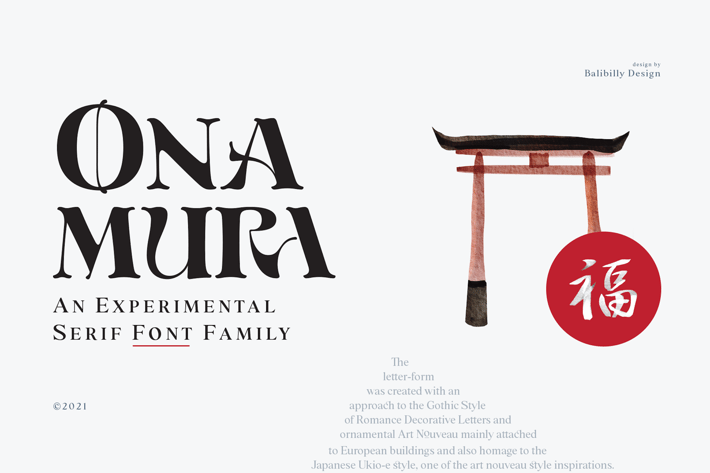
Onamura | Serif Experimental Font
Onamura, Serif Experimental Font
Initially, letterform was inspired by the gothic style of Romance decorative letters in transitional art in the Middle Ages. The conservative type in the Gothic era, especially in decorative romance, has led to the Victorian style being embedded in several forms as accents related but not forced to be combined. Rounded serif seems conventional combined with historically relevant letterform to create a harmonious blend, making it an excellent pair to Helvetica, Montserrat, Gotham, and many more. The art nouveau style also inspires this typeface. Approach to architectural ornamentation from 1880 to 1915, adopting the dynamic lines and curves typical of the civilization of the time. Continue time travel; we also present a more modern form influenced by the digitalization of art nouveau derivatives, familiarly called the psychedelic style.
Paying homage to predecessors, we presented The Onamura font in a Japanese Ukiyo-e style that influenced the fine arts movement that broke old conservative art in Europe.
We designed this font carefully with the information about the Middle Ages, Ukiyo-E, & Art Nouveau that greatly influenced art worldwide. In this font family, there are collaboration vibes. Both are the basis of the phenomenal blend of idealism between western and Japanese artists.
Features an extended charset of over 850 glyphs, covering multilingual support, including Western European, Central European, and Southeastern European. Complete with advanced open type features like stylistic alternates, discretionary ligatures, ordinals, small caps, fractions, and case-sensitive forms.
The elegant and refined details seen in this font provide a new aesthetic input, satisfy contemporary style, and give a range of choices for luxury typographic projects. This font is perfectly suited for high-impact headlines. Advance open-type features are stunning on logos, branding, magazines, website, etc.
Stylistic alternate
Ordinals
Ligatures
Onamura Light
Onamura Black